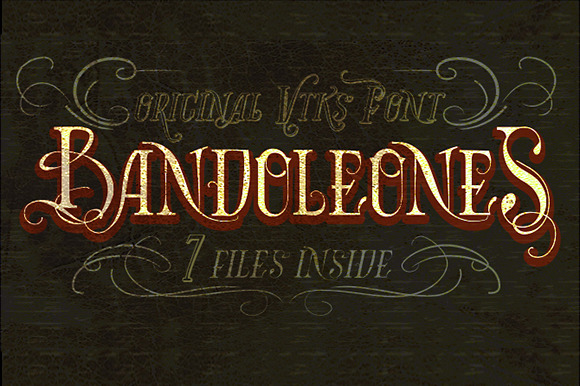
Beautiful font for logos or any arts you want. Vintage feel. You take 4 arts in vector (cs3+). The files arts are using these fonts and ornaments. Easy to edit. Install fonts first and open the files and play around. Thanks!